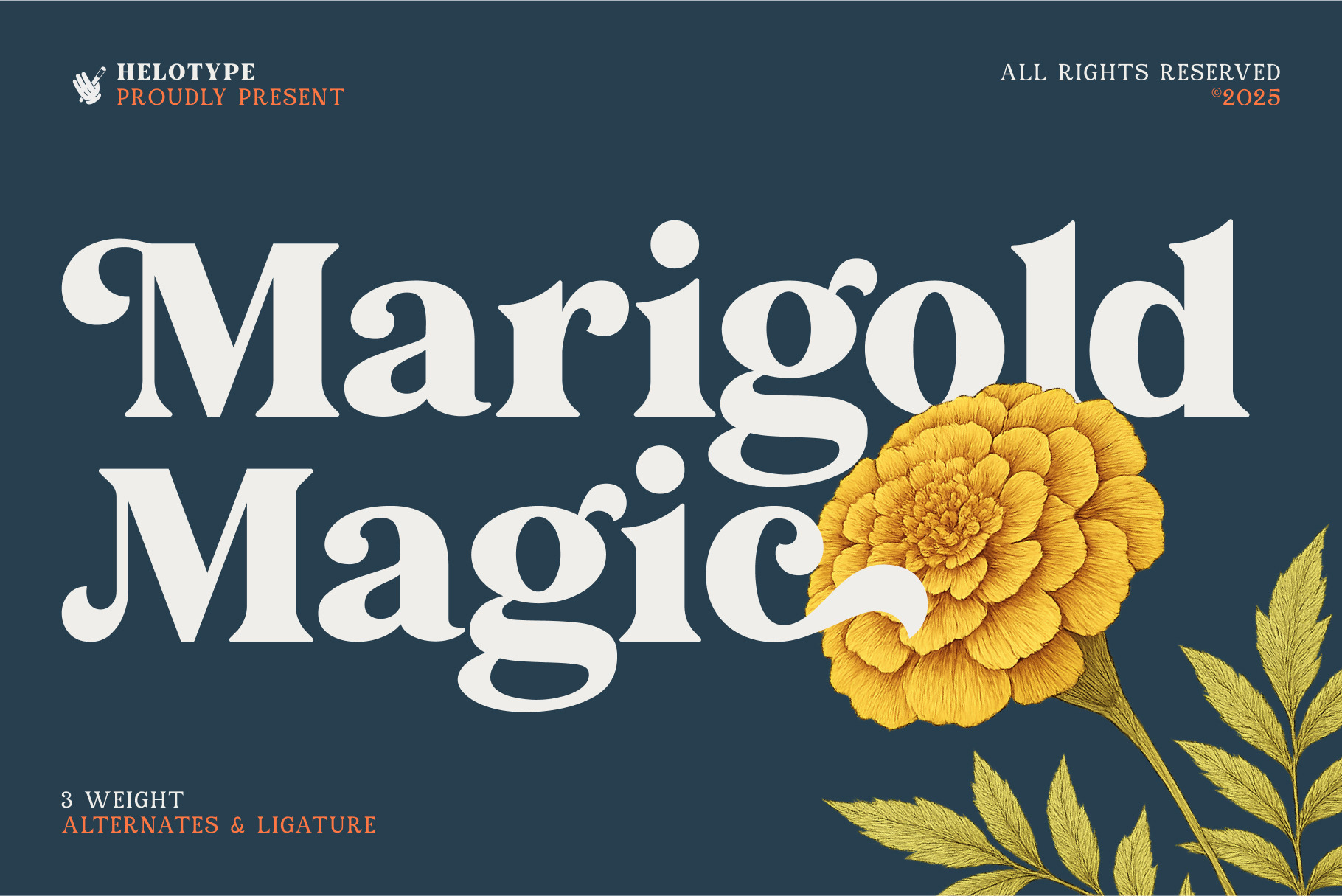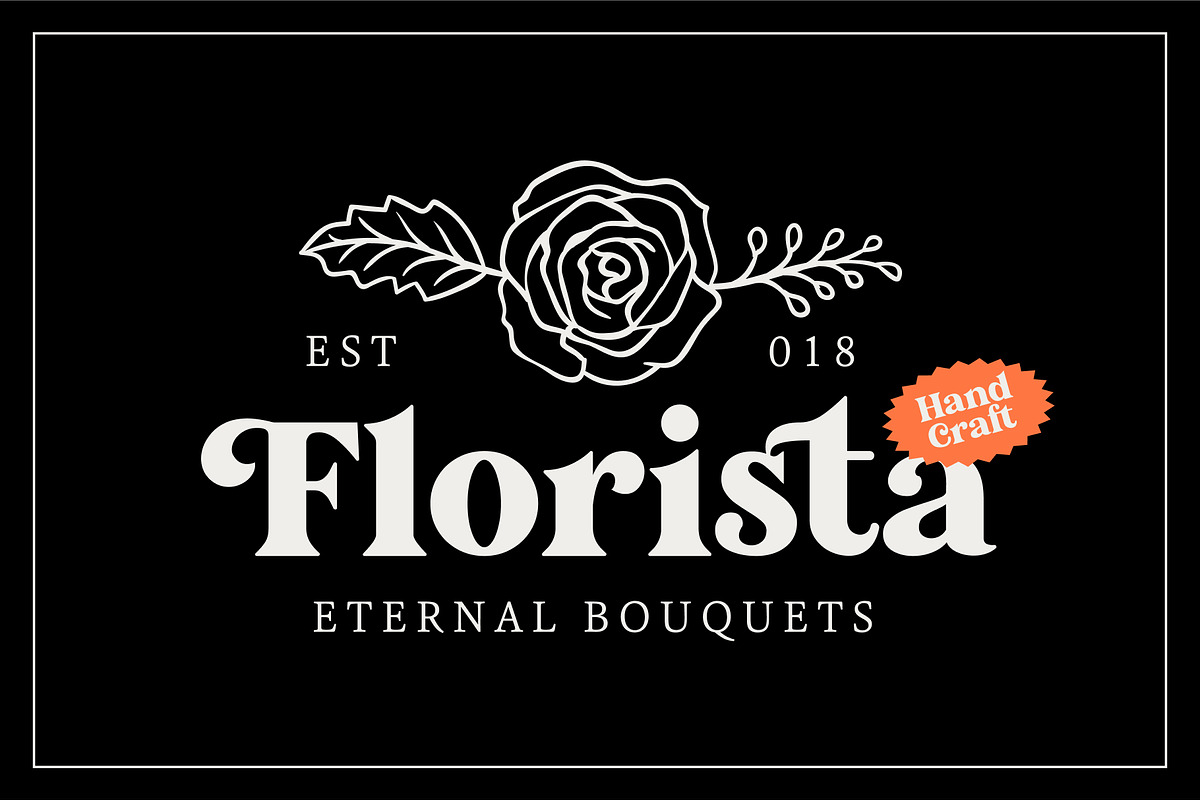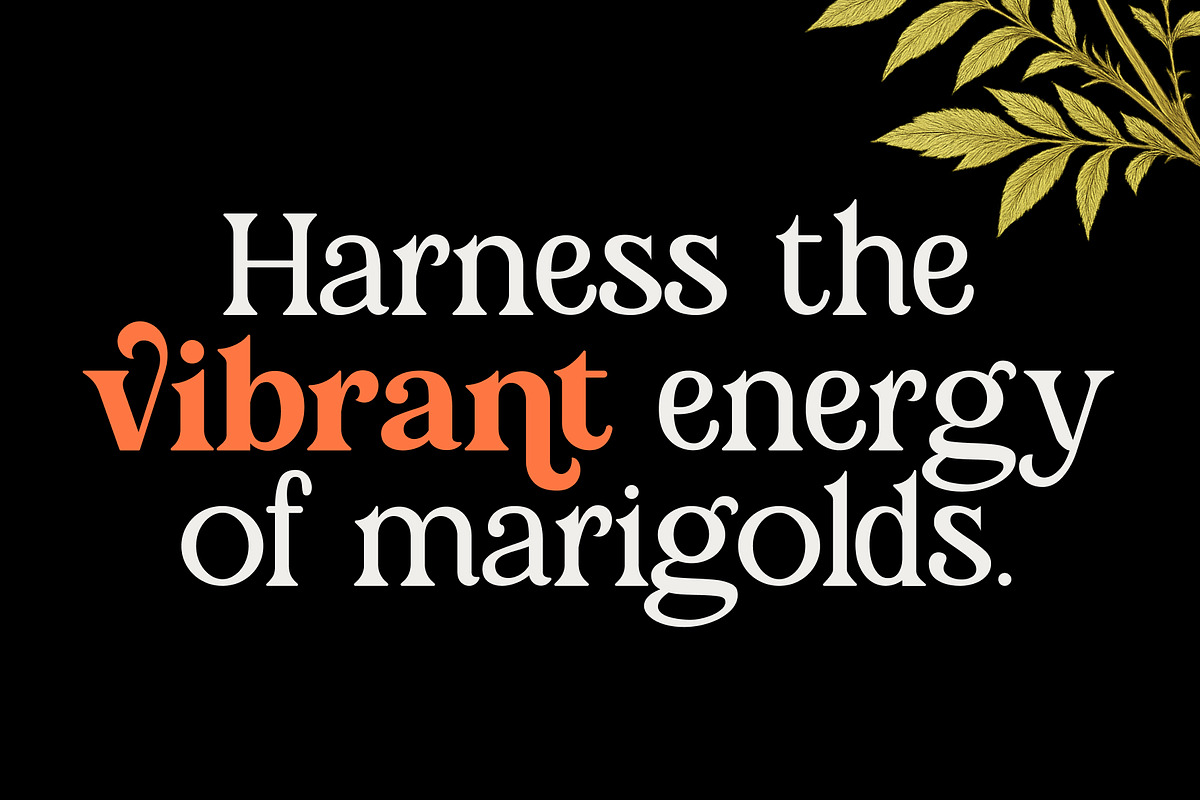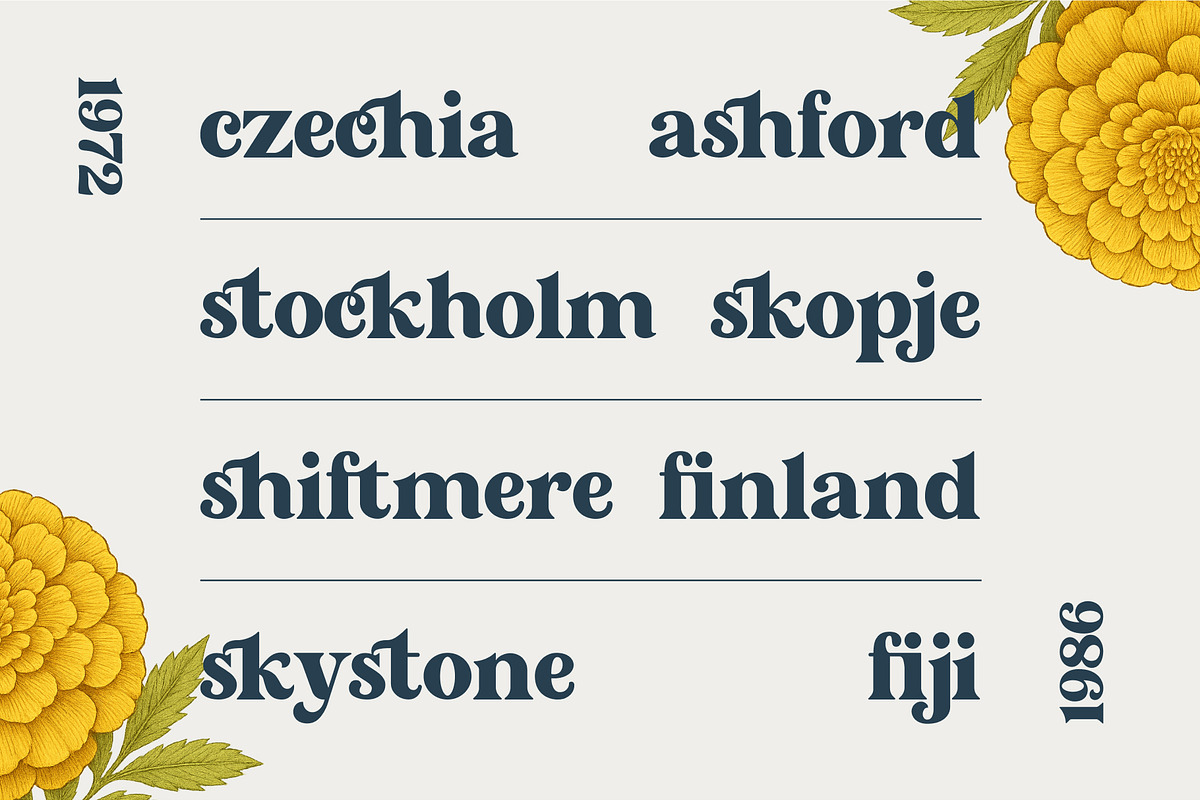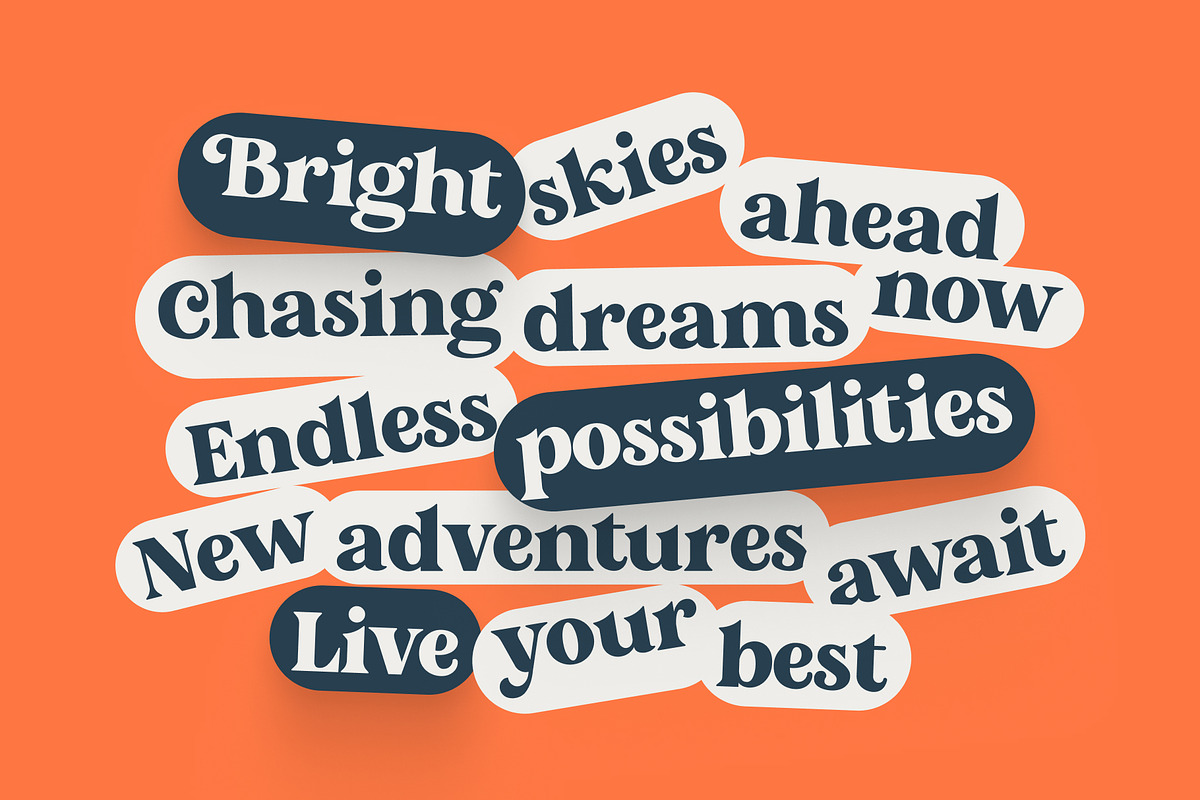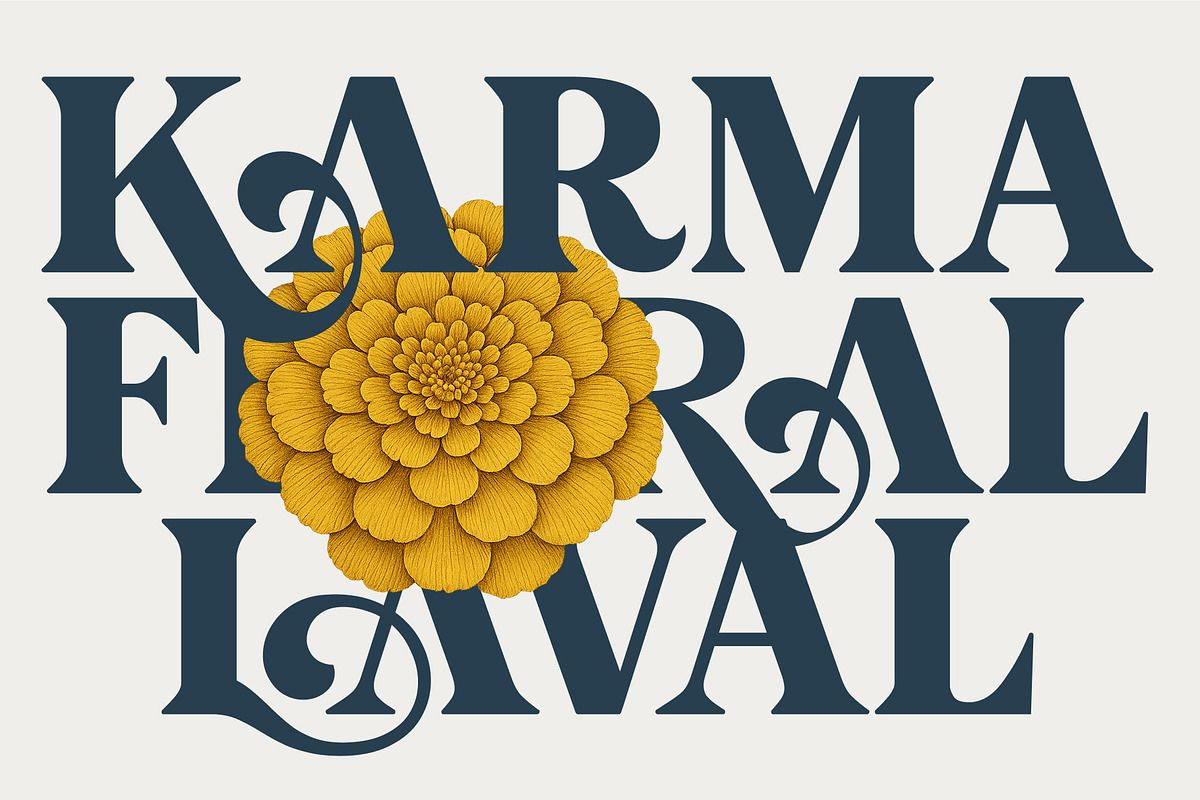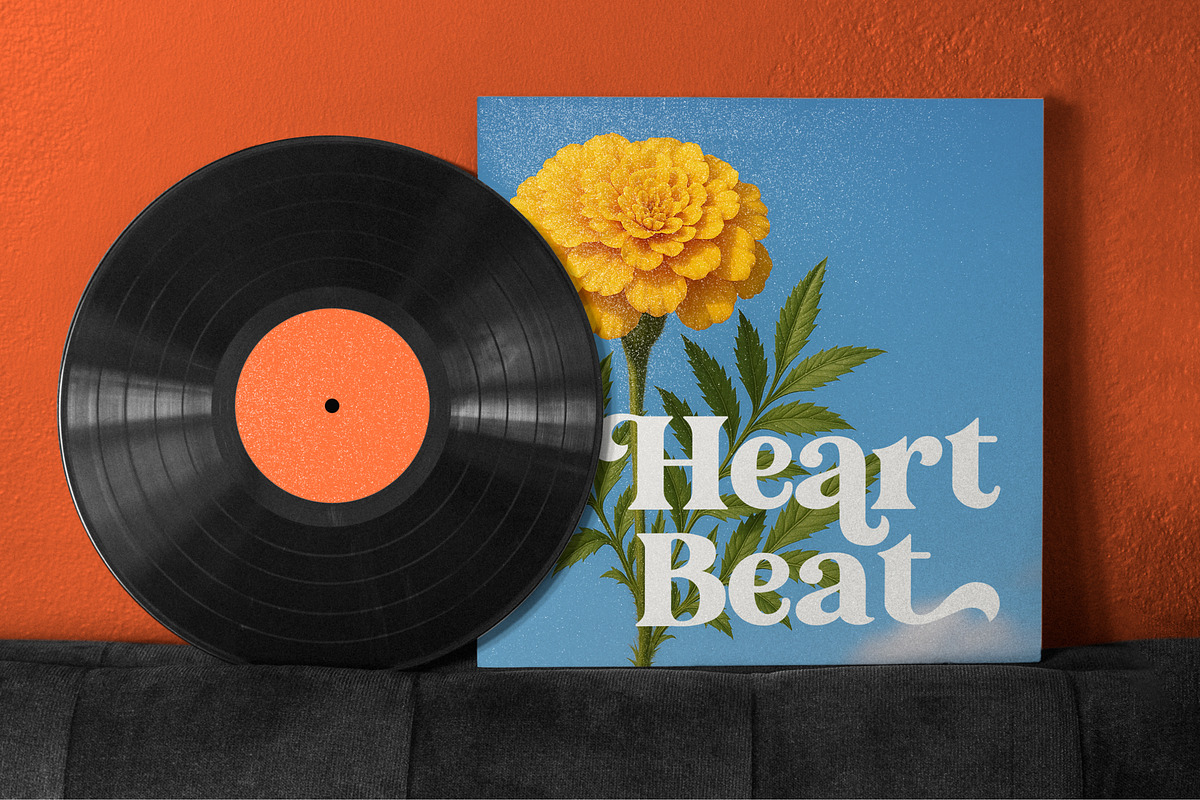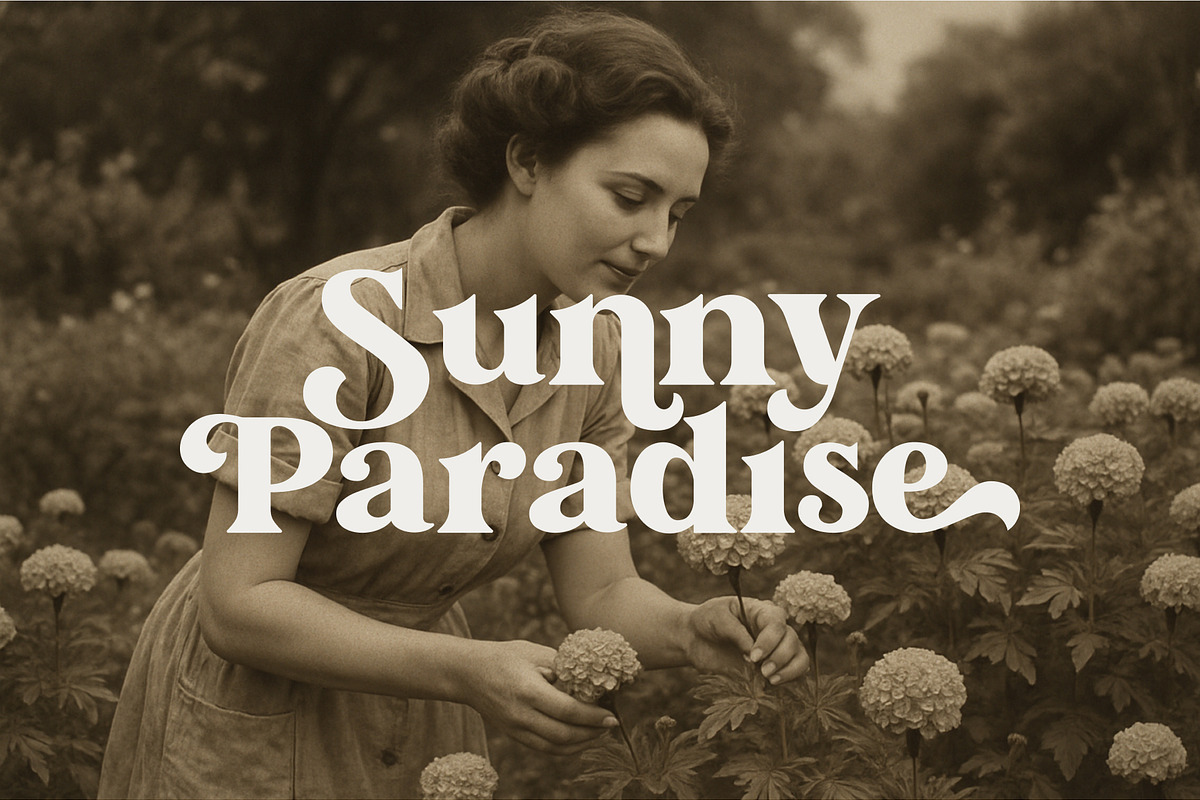
Marigold Magic: Vintage Serif Font
Step back in time with Marigold Magic, a vintage-inspired serif font that exudes charm and elegance. With 3 weights, alternates, multilingual, and ligatures, this versatile font is perfect for adding a touch of classic sophistication to your designs. Whether you're working on a wedding invitation, a vintage-themed poster, or a stylish logo, Marigold Magic will bring your vision to life.
- Uppercase and lowercase letters
- ligature and alternates feature
- Numbering and punctuations
- Family 3 weight fonts